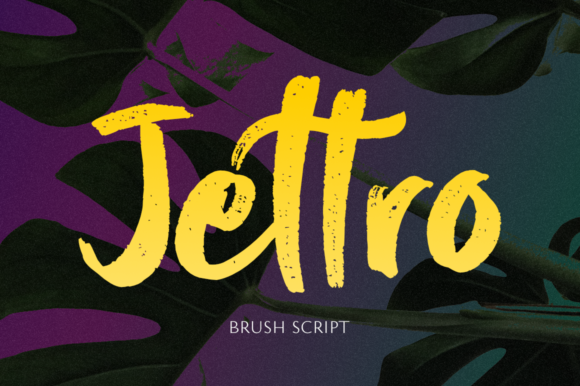
**Introducing Jettro Font: A Masterpiece of Creative Expression**
Embark on a whimsical journey to the realm of vintage inspiration with Jettro Font, a captivating script typeface that breathes life into your creative endeavors. Crafted with meticulous care by the renowned Epiclinez, Jettro embodies the essence of authenticity, allowing you to evoke a bygone era with a modern twist.
**Unleash the Power of the Past**
Jettro's meticulously crafted strokes and organic curves pay homage to the timeless charm of handwritten scripts. Each letter dances across the page, carrying with it the nostalgia of yesteryears. Whether you're crafting a vintage-inspired logo, designing an eye-catching poster, or simply adding a touch of retro flair to your branding, Jettro transports you to a realm of endless creative possibilities.
**A Font for All Occasions**
Jettro's versatility extends far beyond your imagination. Its playful nature lends itself seamlessly to countless applications, from t-shirts and mugs to social media graphics and even book covers. Let your creativity soar as you explore the boundless potential of this captivating script font.
**Experience the Magic of Handwritten Charm**
With Jettro at your fingertips, you can infuse your designs with a genuine touch of handmade artistry. Its organic flow and subtle imperfections bring a sense of authenticity that captivates and inspires. Embrace the beauty of imperfection and let your creations exude a captivating vintage charm.
**Ignite Your Imagination**
Jettro is more than just a font; it's a gateway to a world of limitless creativity. Unleash your imagination and watch as your designs transform into captivating works of art. Let the nostalgic elegance of Jettro guide you on an extraordinary journey where the past and present intertwine harmoniously.
**Craft Your Legacy with Jettro Font**